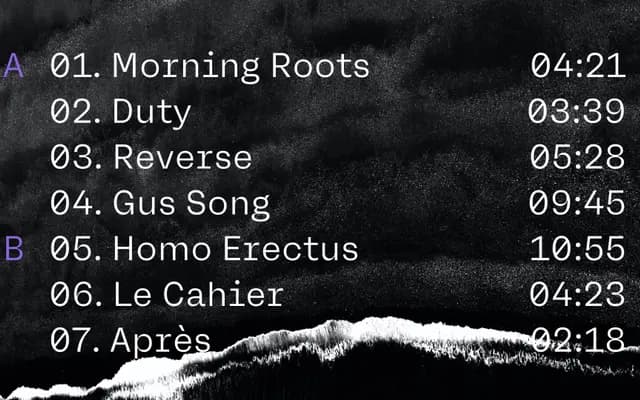
Neue Rational Mix
A geometric sans from the Neue Rational family offering eight styles and a range of alternate letterforms via OpenType features.
Part of Studio Rene Bieder's Neue Rational system, this mix variant spans Regular through Bold with matching italics and a set of OpenType alternates covering the a, g, y and t. Features include tabular and proportional figures, case-sensitive forms, fractions and alternate arrows, giving designers meaningful typographic control within a clean geometric framework. Related to both the core Neue Rational and the Neue Rational Mono, it sits comfortably in editorial, interface and brand work.
Neue Rational Mix is a geometric sans-serif in the Neue Rational family, offering alternate letterform options that suggest a hybrid between strict geometric and humanist influences, typical of Bieder's rational design approach.